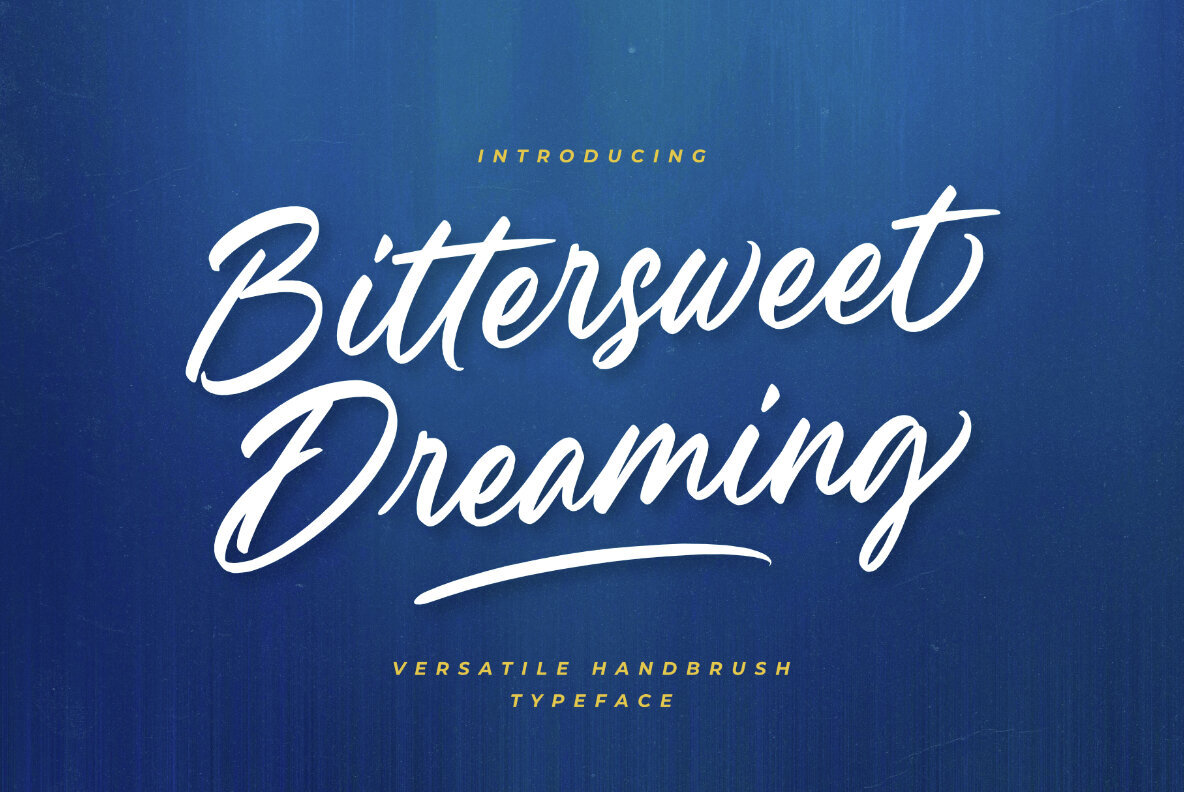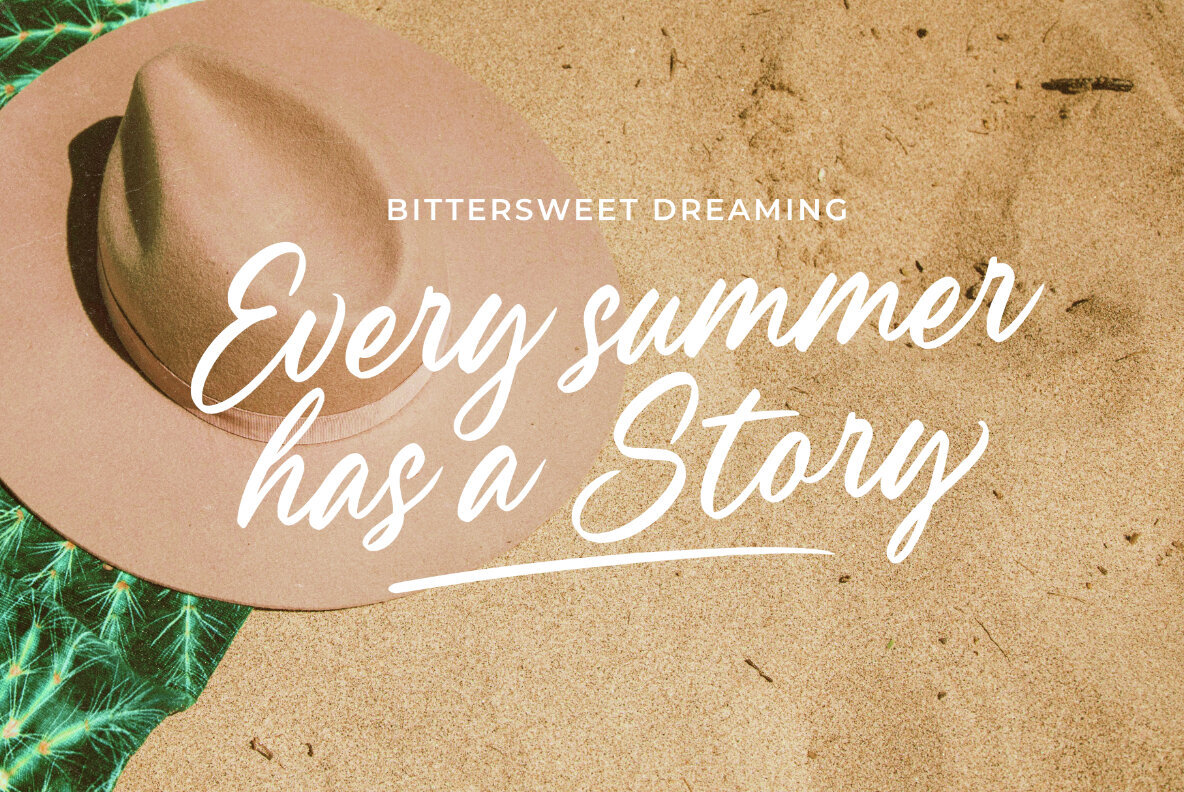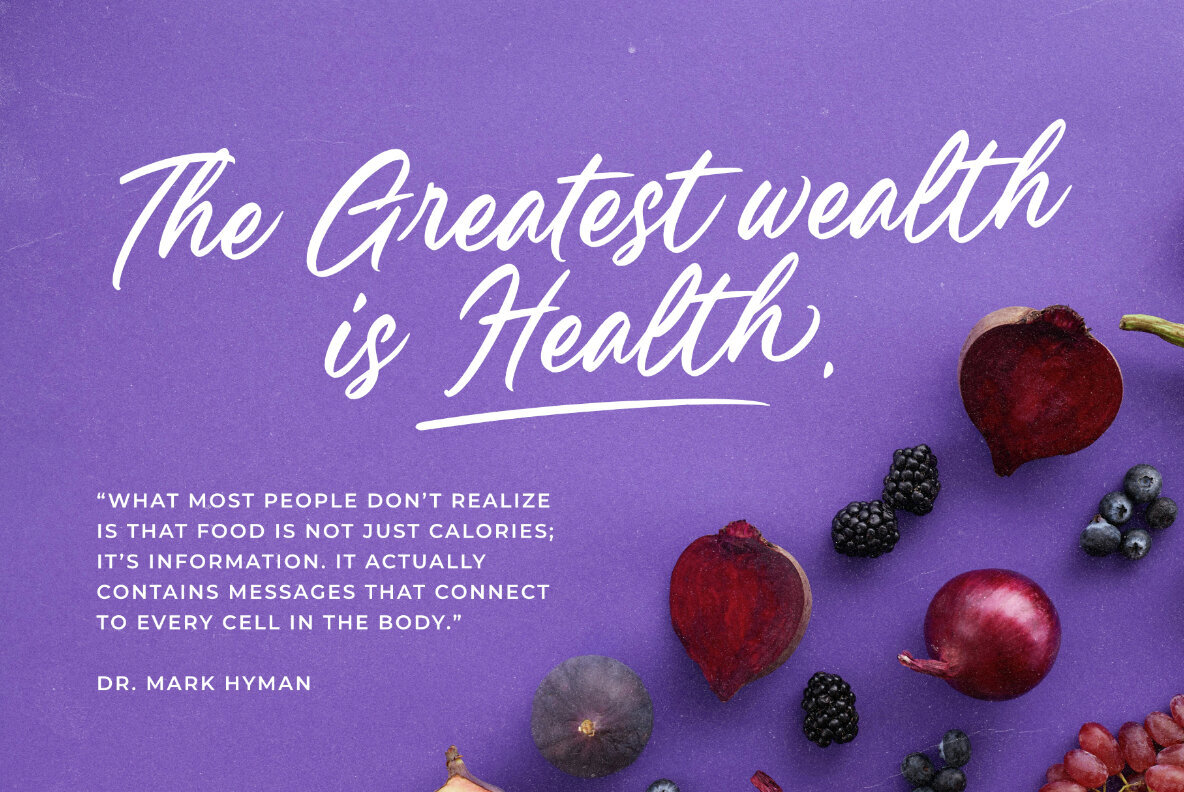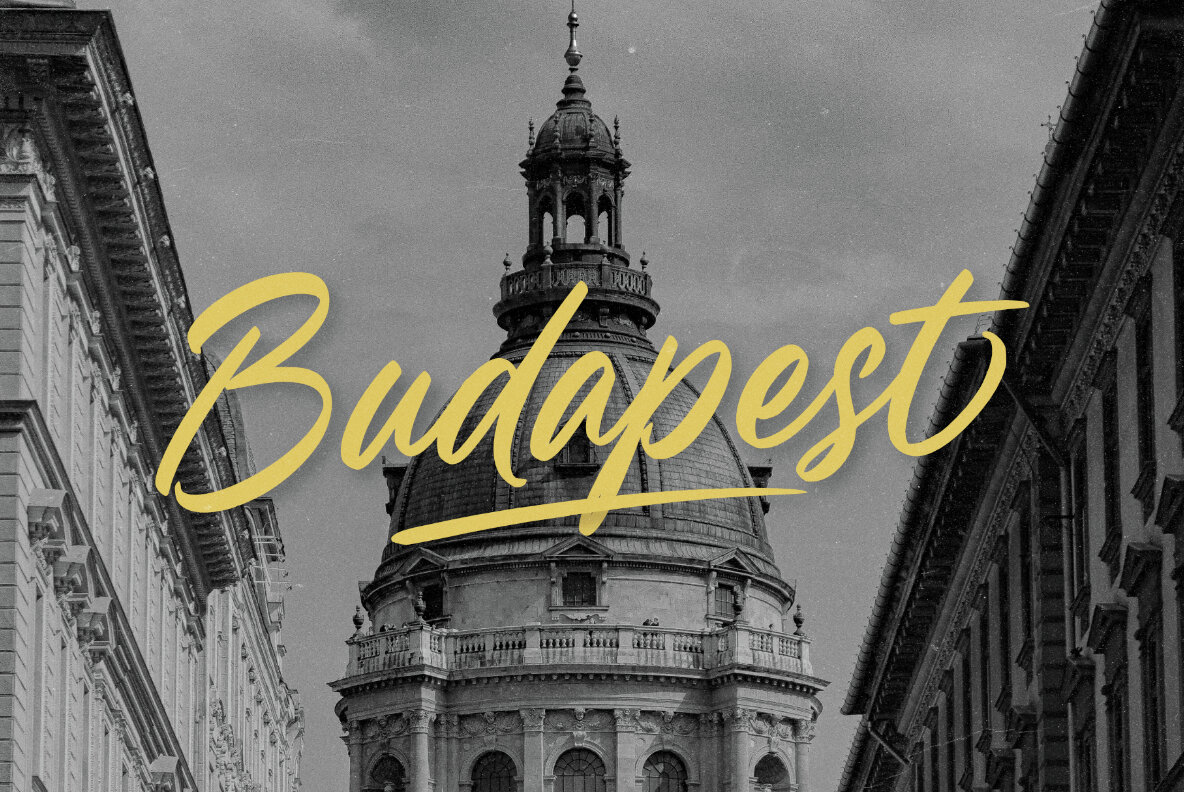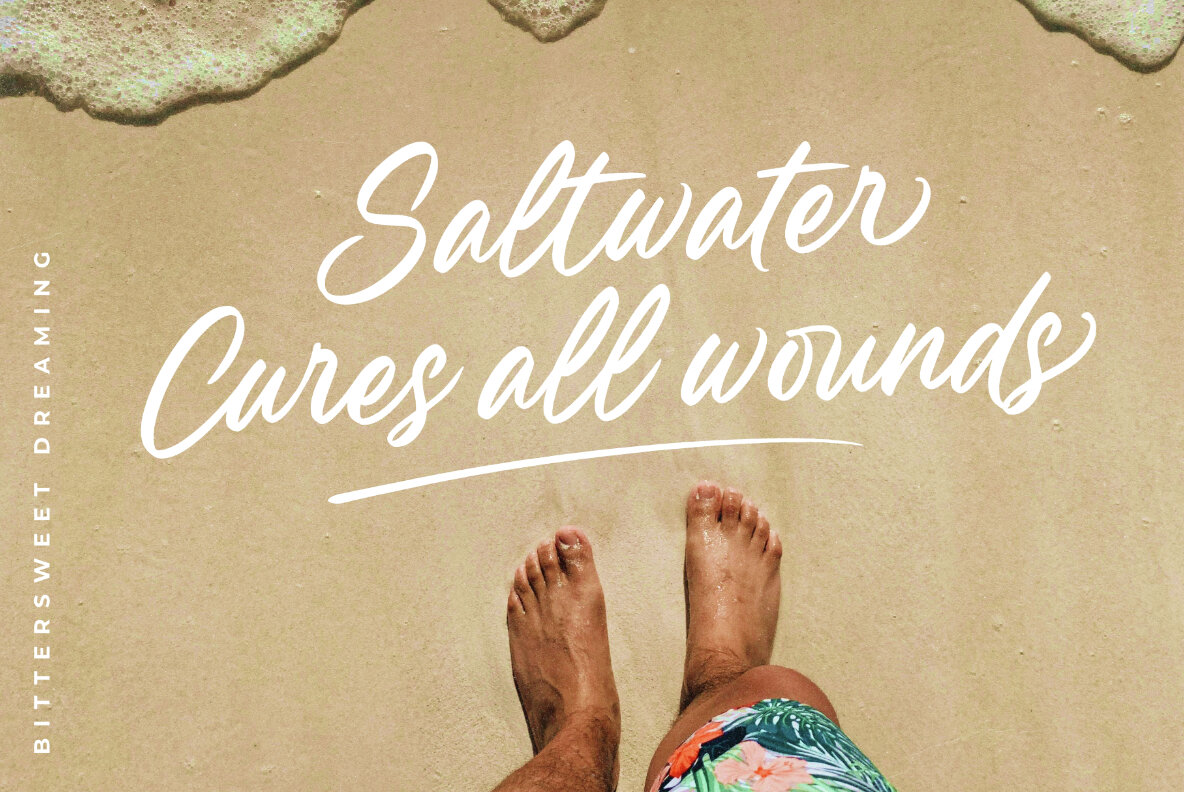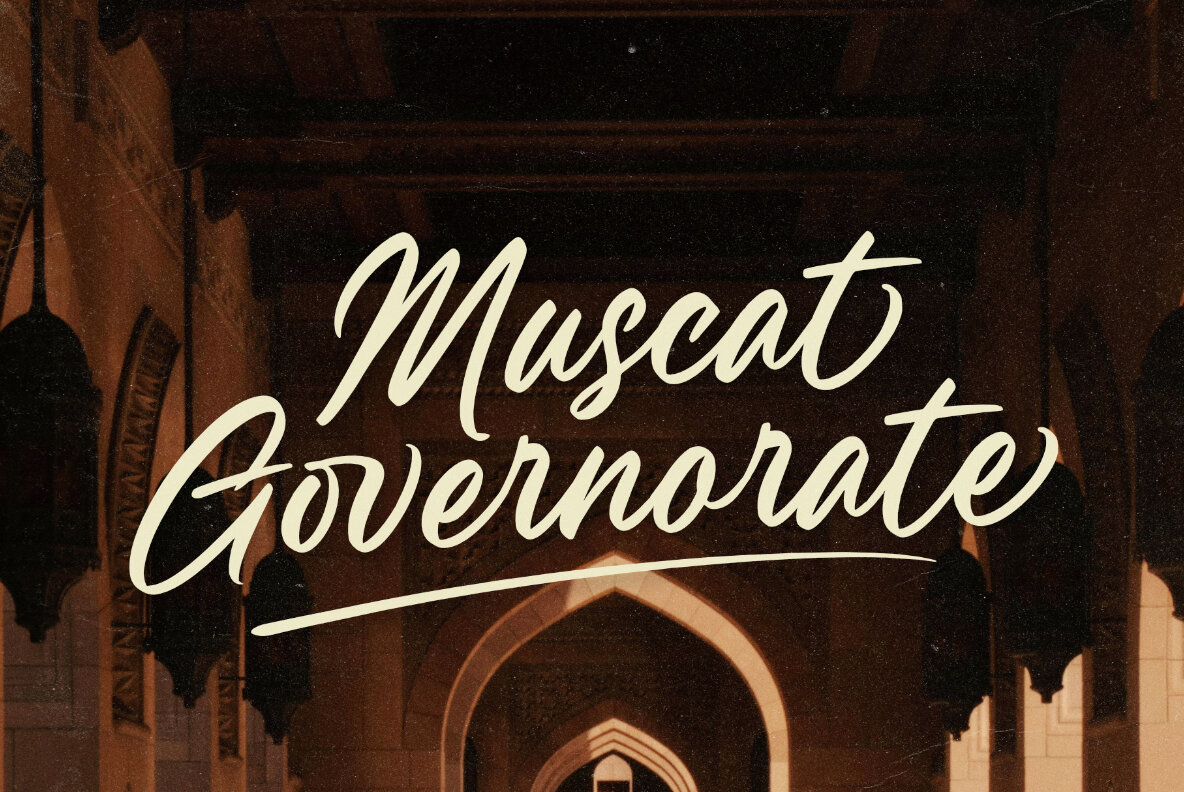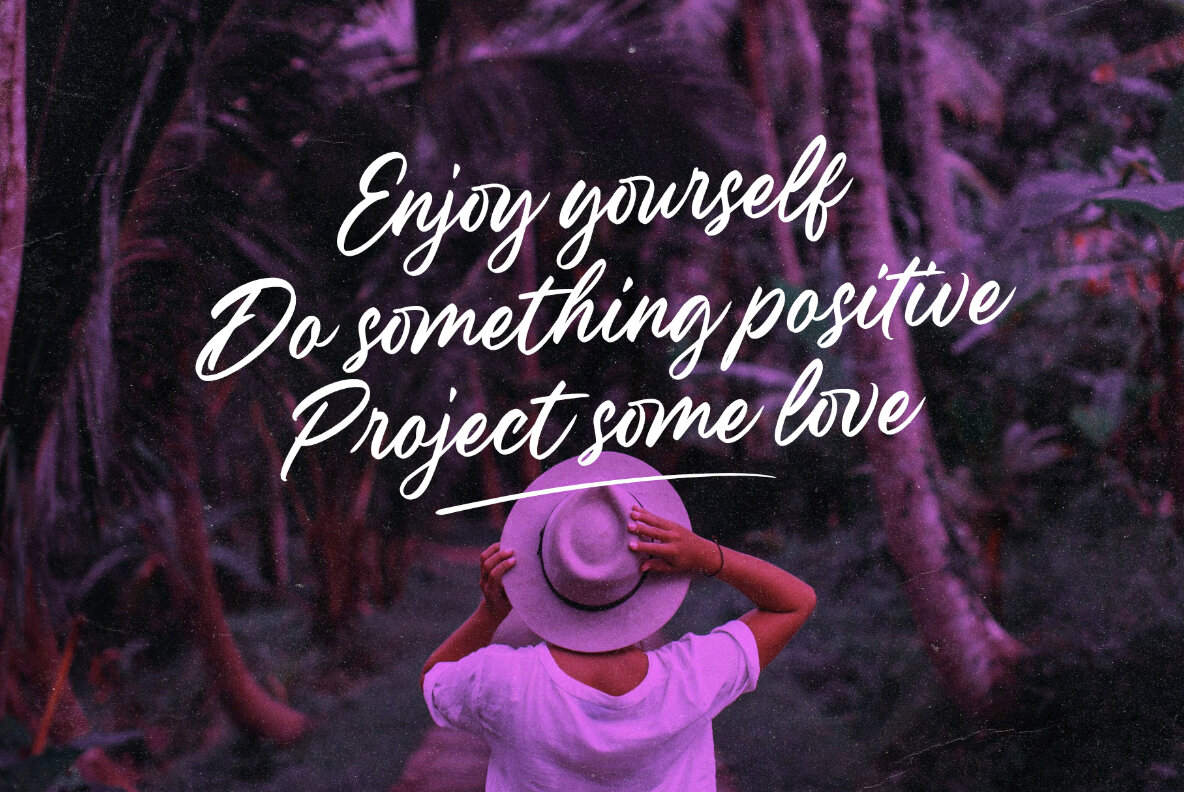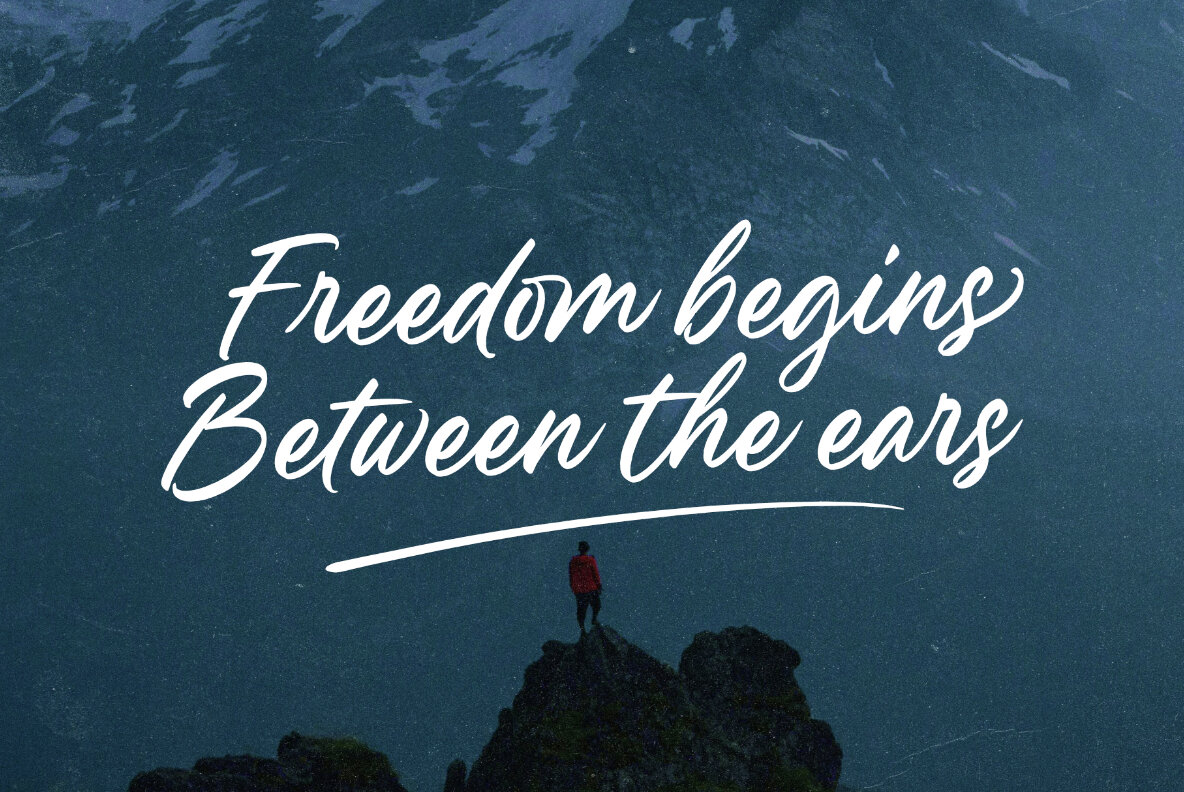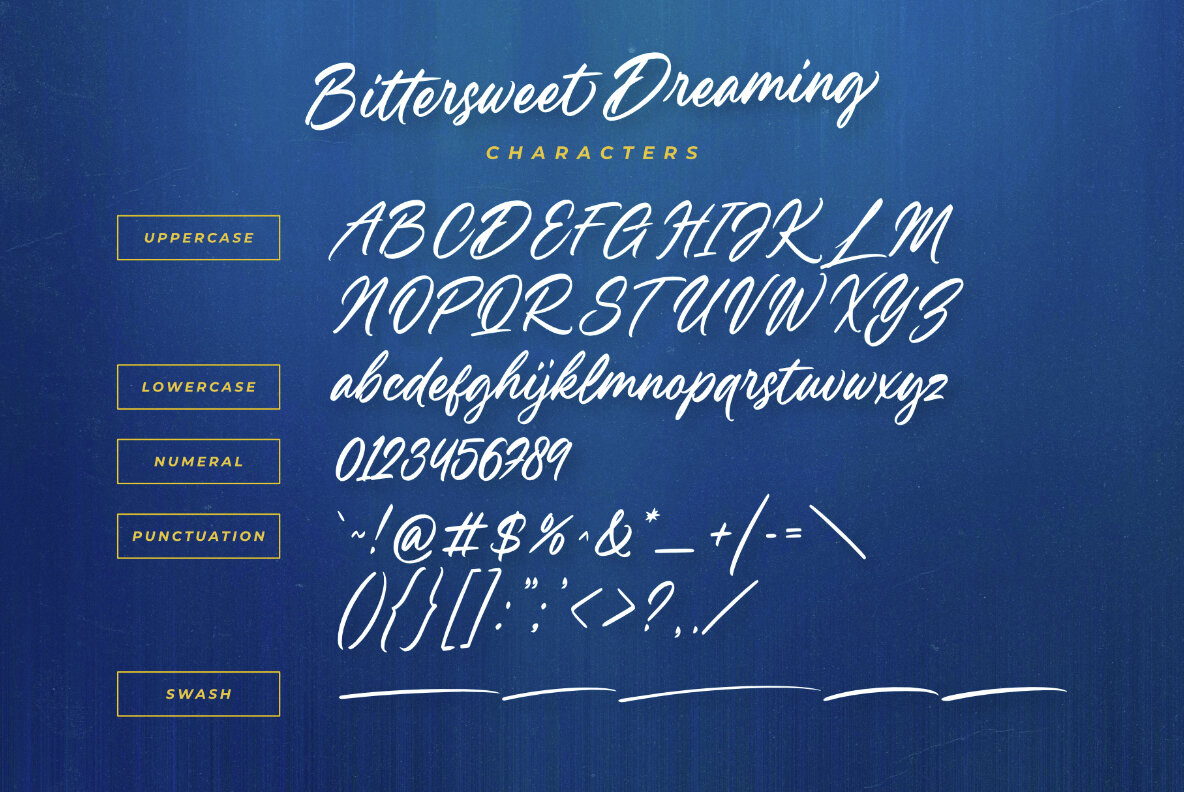
Bittersweet Dreaming Font
Bittersweet Dreaming is a handbrush typeface that embodies both whimsy and wonder. This versatile typeface is designed to add a magical touch to a wide array of design projects, from personal branding to print media, and beyond.Bittersweet Dreaming: Whimsical Handbrush Typeface